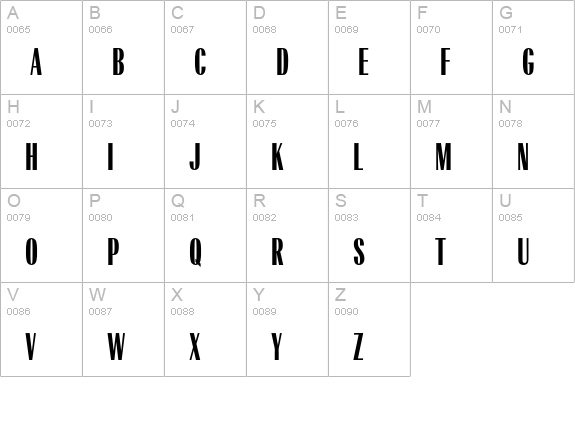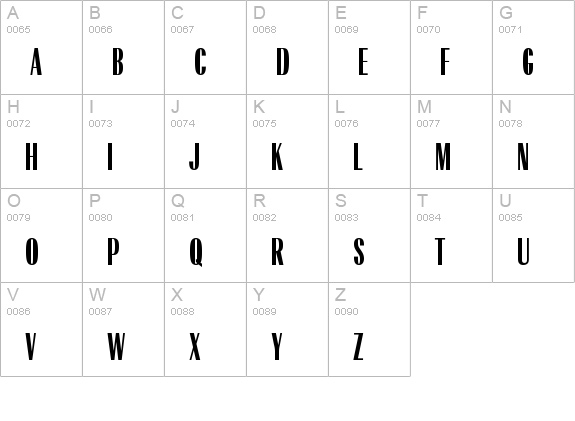
RadiantEFDisplay-CondNo5 Font Details
RadiantEFDisplay-CondNo5 is a stunning font that exudes elegance and sophistication. Its unique condensed design makes it perfect for a wide range of projects, from branding and packaging to editorial design and advertising. The sleek and modern letterforms are carefully crafted to capture attention and convey a sense of style. What sets RadiantEFDisplay-CondNo5 apart is not only its exceptional aesthetic appeal but also the fact that it is freely available to download at FontsMarket.com. This means that designers and creatives can effortlessly access this beautiful font and incorporate it into their projects without any financial constraints. With its clean lines, balanced proportions, and distinct character shapes, RadiantEFDisplay-CondNo5 is a versatile typeface that can effortlessly elevate any design. Whether you're designing a logo, creating headlines, or crafting a stunning layout, this font will add a touch of sophistication and professionalism to your work. RadiantEFDisplay-CondNo5 is an excellent choice for those seeking a font that combines elegance with readability. Its legibility ensures that your message is clearly communicated, while its stylish design adds a touch of personality. This font is perfect for both print and digital applications, making it a go-to choice for any designer looking to make a statement. Download RadiantEFDisplay-CondNo5 for free at FontsMarket.com and unlock a world of design possibilities. Experience the beauty and versatility of this font and take your projects to new heights. With RadiantEFDisplay-CondNo5, you have the freedom to create stunning designs that captivate and inspire.